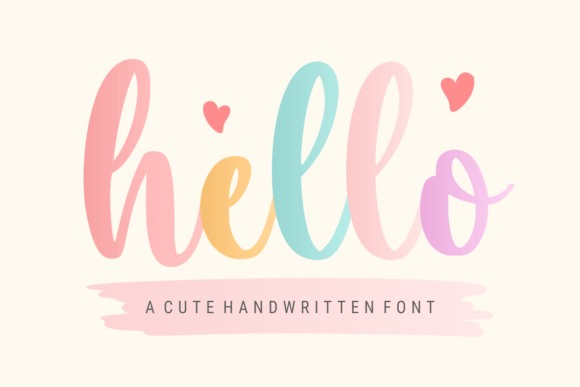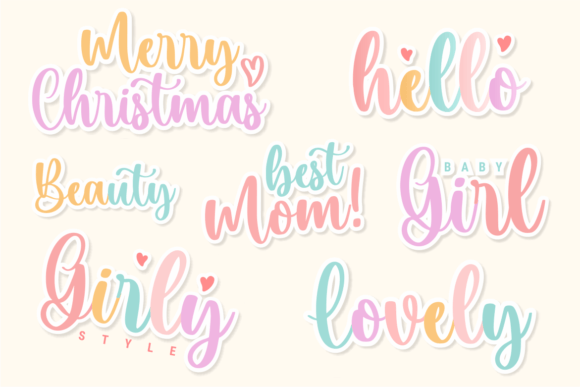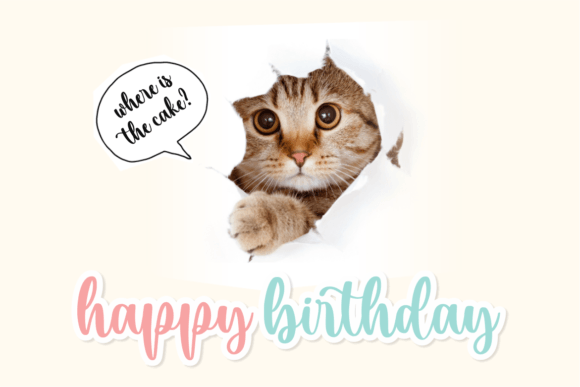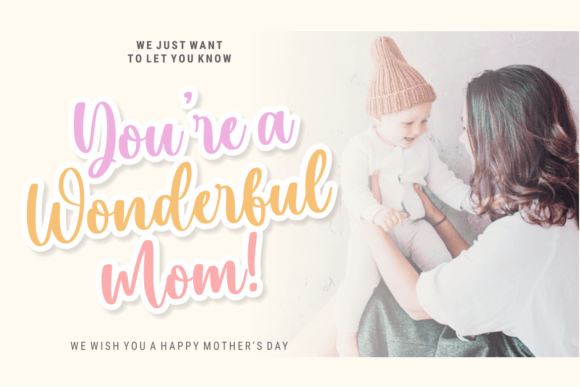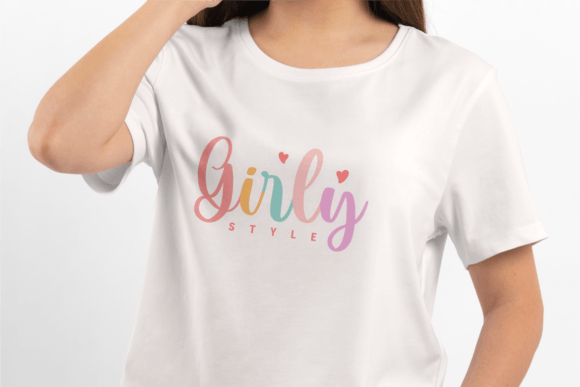
Say hello to ‘Hello’ – a sweet and stylish handwritten font that brings charm to every design. With its delicate strokes and playful flair, it's perfect for greeting cards, quotes, wedding invites, holiday projects, birthday themes, and more. Whether you're designing stickers or adding a personal touch to photos, this font adds warmth and personality to any creation.